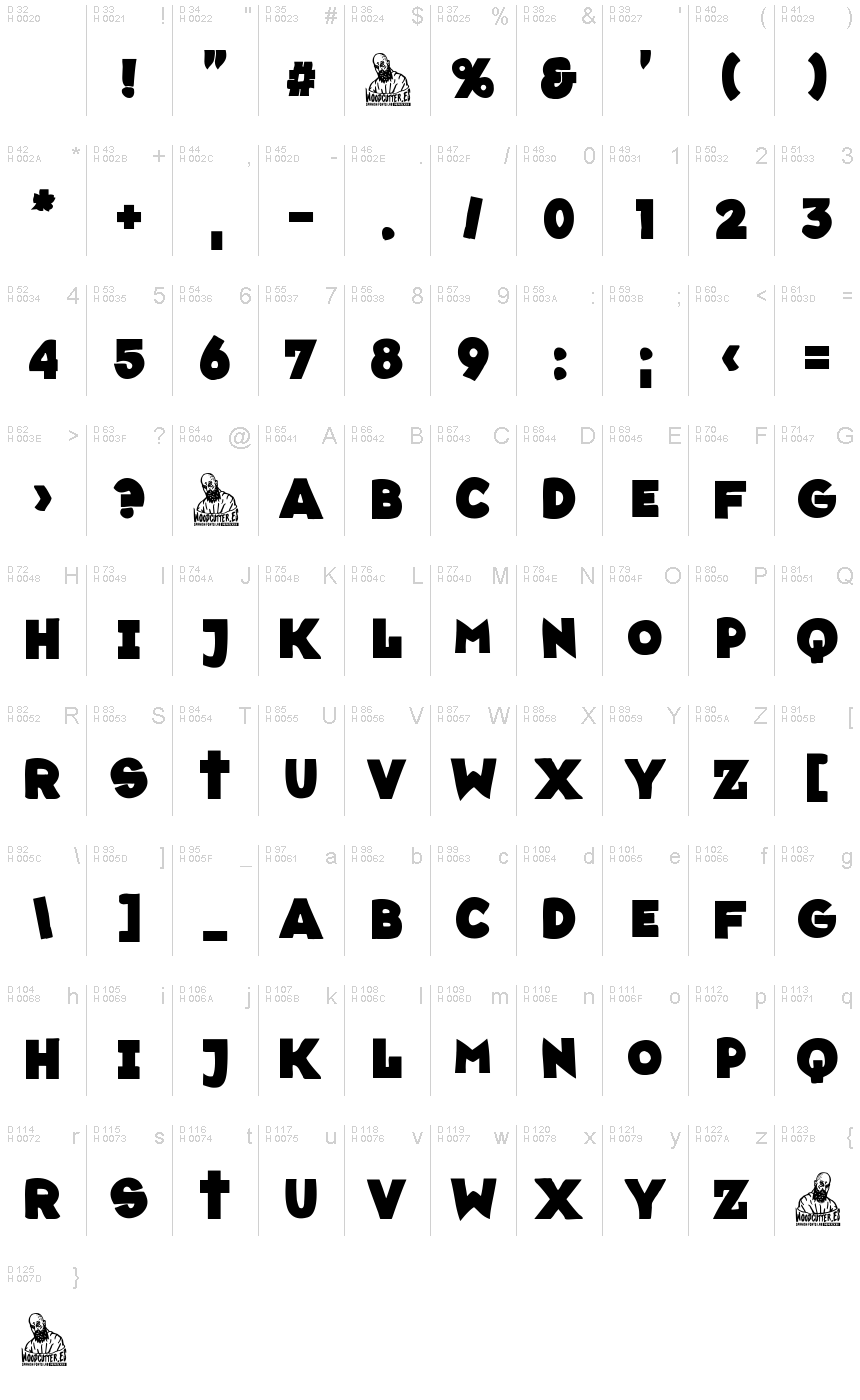
Amunt Espanya!
Amunt Espanya! font by Woodcutter is a bold, cartoon-style display font that captures attention with its playful and exaggerated character designs. Its bold structure and energetic flair make it perfect for projects that demand a strong visual impact.
With its unique blend of vibrancy and creativity, this free font is ideal for eye-catching posters, exciting children's book layouts, or dynamic branding materials. The distinctive style invites designers to download and explore its diverse applications across numerous media formats.